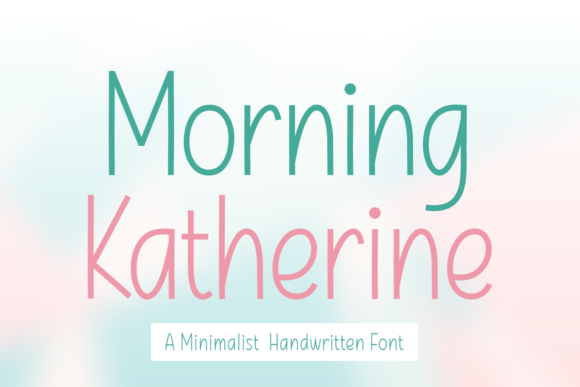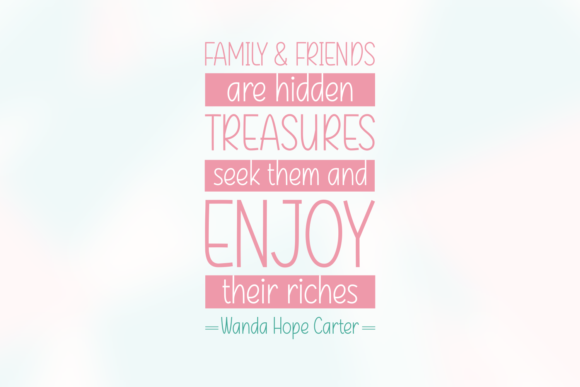
About Morning Katherine Font
“Morning Katherine” is a minimalist handwritten font that offers a clean and understated aesthetic. This font is a versatile addition to your design library, suitable for a variety of applications such as posters, headlines, logos, websites, shirts, and more.
The minimalism of “Morning Katherine” brings a sense of simplicity and modernity to your designs. Its clean lines and straightforward style make it an excellent choice for projects where you want the typography to convey a sense of clarity and sophistication.
Consider using “Morning Katherine” for posters, where the minimalistic approach can allow other design elements to shine. In headlines and logos, this font can provide a contemporary and stylish look. For websites, the clean and readable characters contribute to a user-friendly experience. Additionally, on shirts or other apparel, “Morning Katherine” can add a touch of minimalist charm.
Having “Morning Katherine” in your font library gives you a go-to option when you want a handwritten style that is refined and uncluttered. Its versatility makes it a valuable tool for various design projects where simplicity and a modern touch are desired.
In summary, “Morning Katherine” is a minimalist handwritten font that can be seamlessly integrated into your design projects. Whether you’re working on posters, headlines, logos, websites, shirts, or other creative endeavors, this font adds a touch of modern simplicity to enhance your visual compositions.